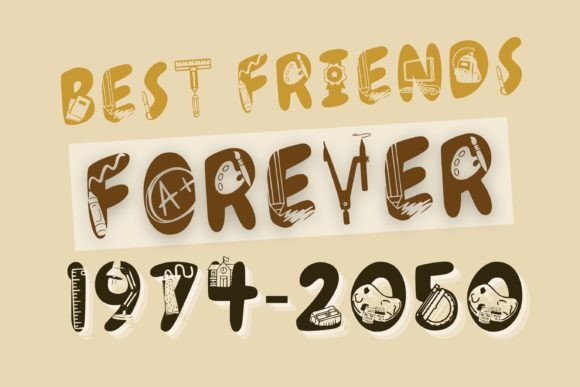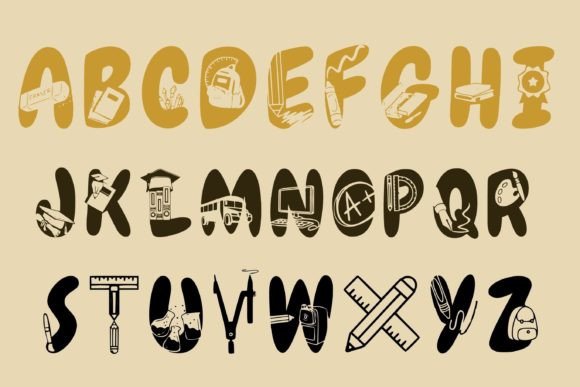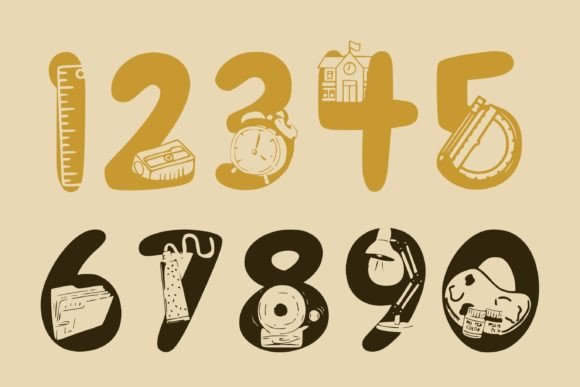
Back to School Font: Elevate Your Designs with a Cool, Fun, and Unique Decorative Font
As the new school year approaches, designers and crafters are on the lookout for fresh and exciting fonts to add a personal touch to their projects. If you’re searching for a font that’s both cool and fun, look no further than the Back to School Font. This decorative font is perfect for a wide range of projects, from blog posts and logos to invitations, greeting cards, and more.
What Makes Back to School Font So Special?
The Back to School Font is a unique and eye-catching decorative font that’s sure to make your designs stand out. Its cool and fun design makes it perfect for a variety of projects, including:
- Blog posts: Add a playful touch to your blog posts with this fun and quirky font.
- Logos and branding: Create a memorable brand identity with this unique font.
- Ads: Grab attention with bold and eye-catching ads featuring this decorative font.
- Invitations: Make your invitations shine with this fun and festive font.
- Greeting cards: Add a personal touch to your greeting cards with this charming font.
- Planners and photo albums: Organize your thoughts and memories in style with this decorative font.
- Decorations: Use this font to create eye-catching decorations for parties, events, or everyday use.
How to Use Back to School Font
Here are a few tips for getting the most out of this font:
- Combine the Back to School Font with other fonts for a unique and eye-catching look.
- Use the font to create bold and eye-catching headings, or for more subtle text elements.
The Back to School Font is a versatile and fun font that’s perfect for designers and crafters. Here are just a few benefits of using this font:
- Add a personal touch to your designs with a unique and eye-catching font.
- Take your designs to the next level with the ability to customize and edit the font to suit your needs.
If you’re looking for a cool, fun, and unique decorative font to elevate your designs, look no further than the Back to School Font. With its versatile design and wide range of uses, this font is perfect for designers and crafters alike. Download the Back to School Font today and start creating amazing designs that will stand out from the crowd!